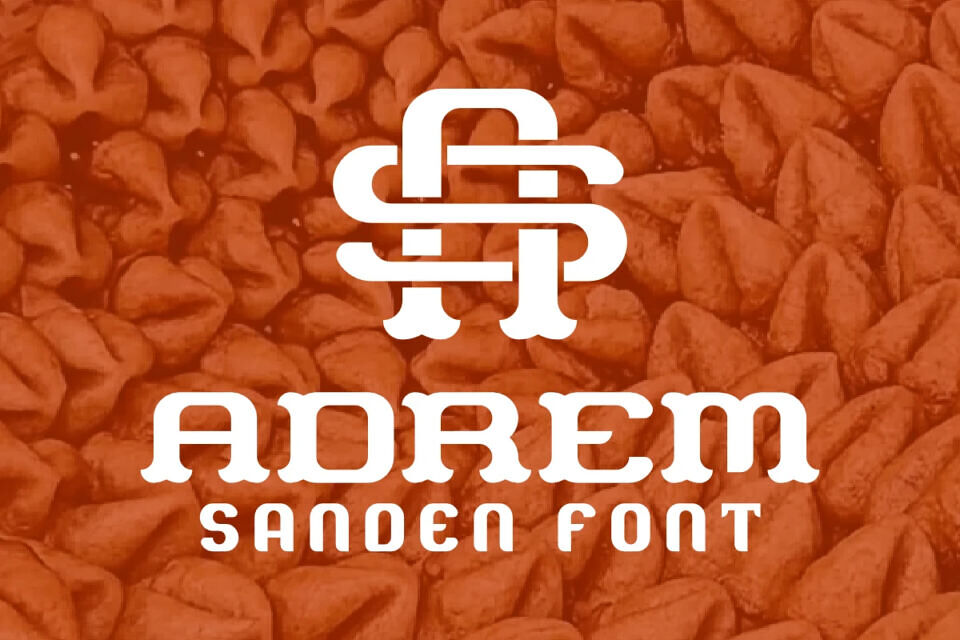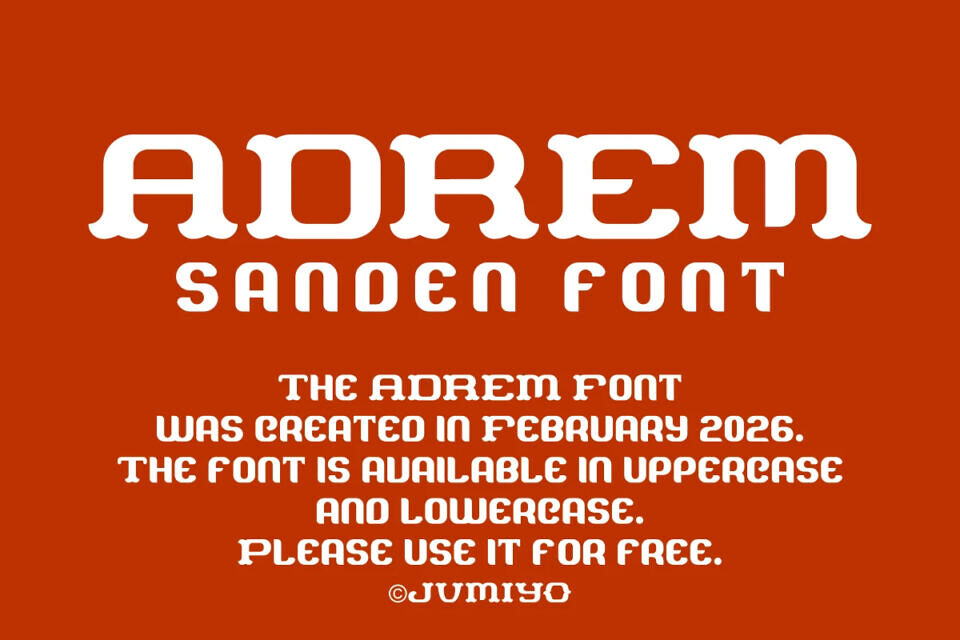
ADREM Sanden Font
The ADREM Sanden Font, designed by Jumiyo, is a striking display typeface that blends vintage Western aesthetics with a modern, rounded twist. Characterized by its thick slabs, ornate spurs, and soft edges, this versatile font offers high-impact legibility for branding and headlines.
Available in both uppercase and lowercase, its unique “slab-serif meets retro” style is perfect for logos, posters, and creative editorial projects. Best of all, it is free for use, making it a must-have for contemporary designers.
Designed by: JVMIYO